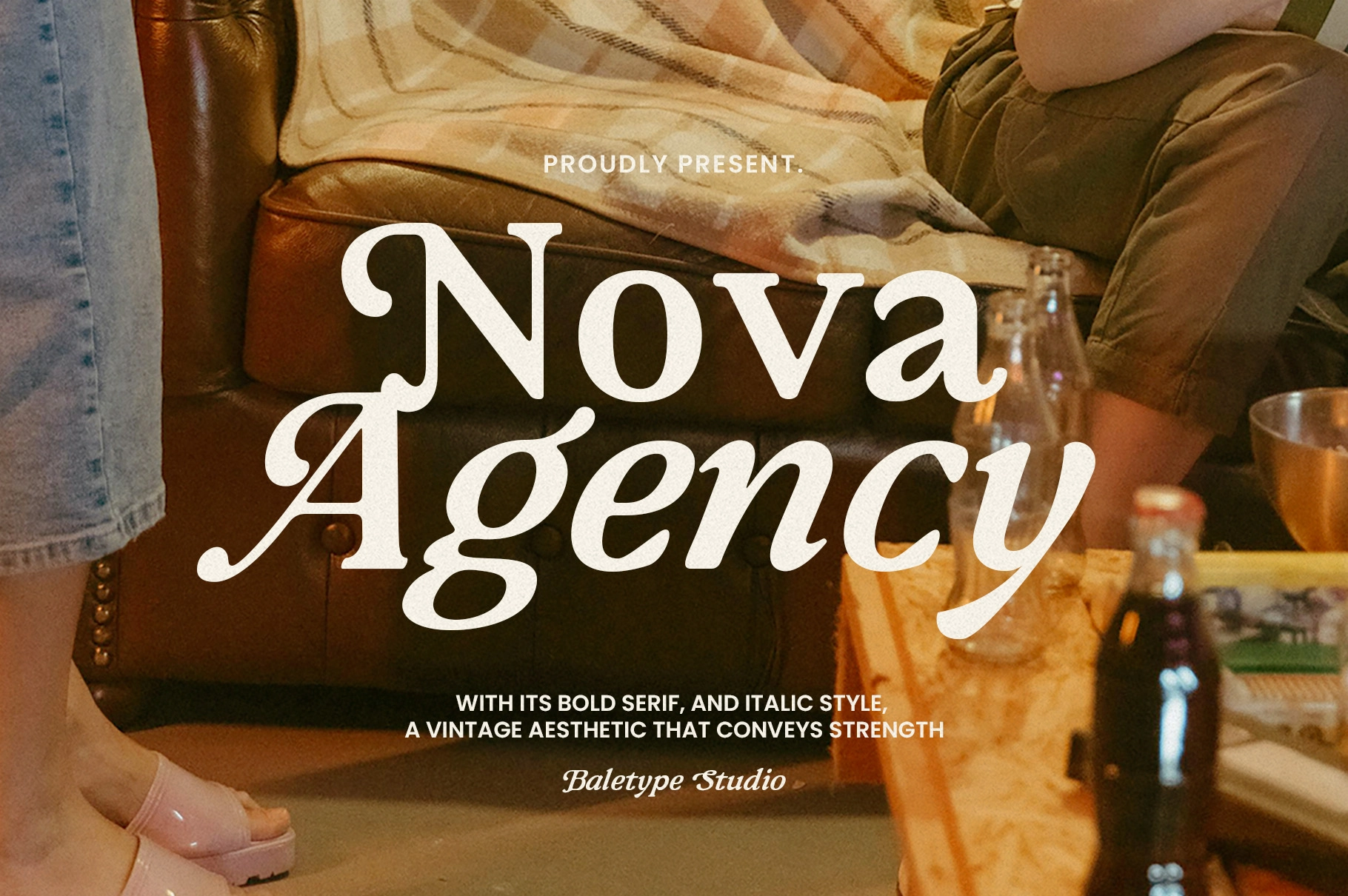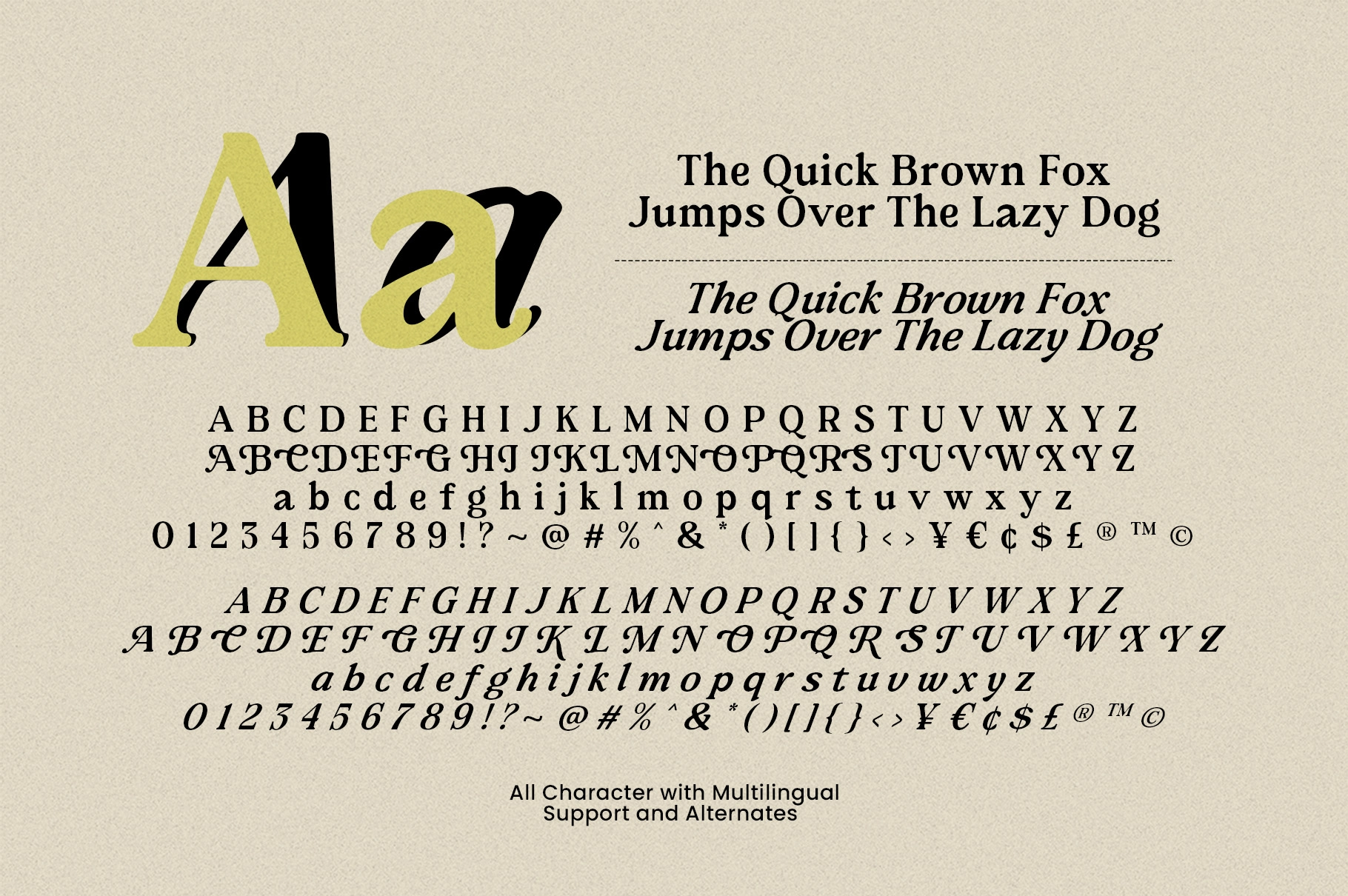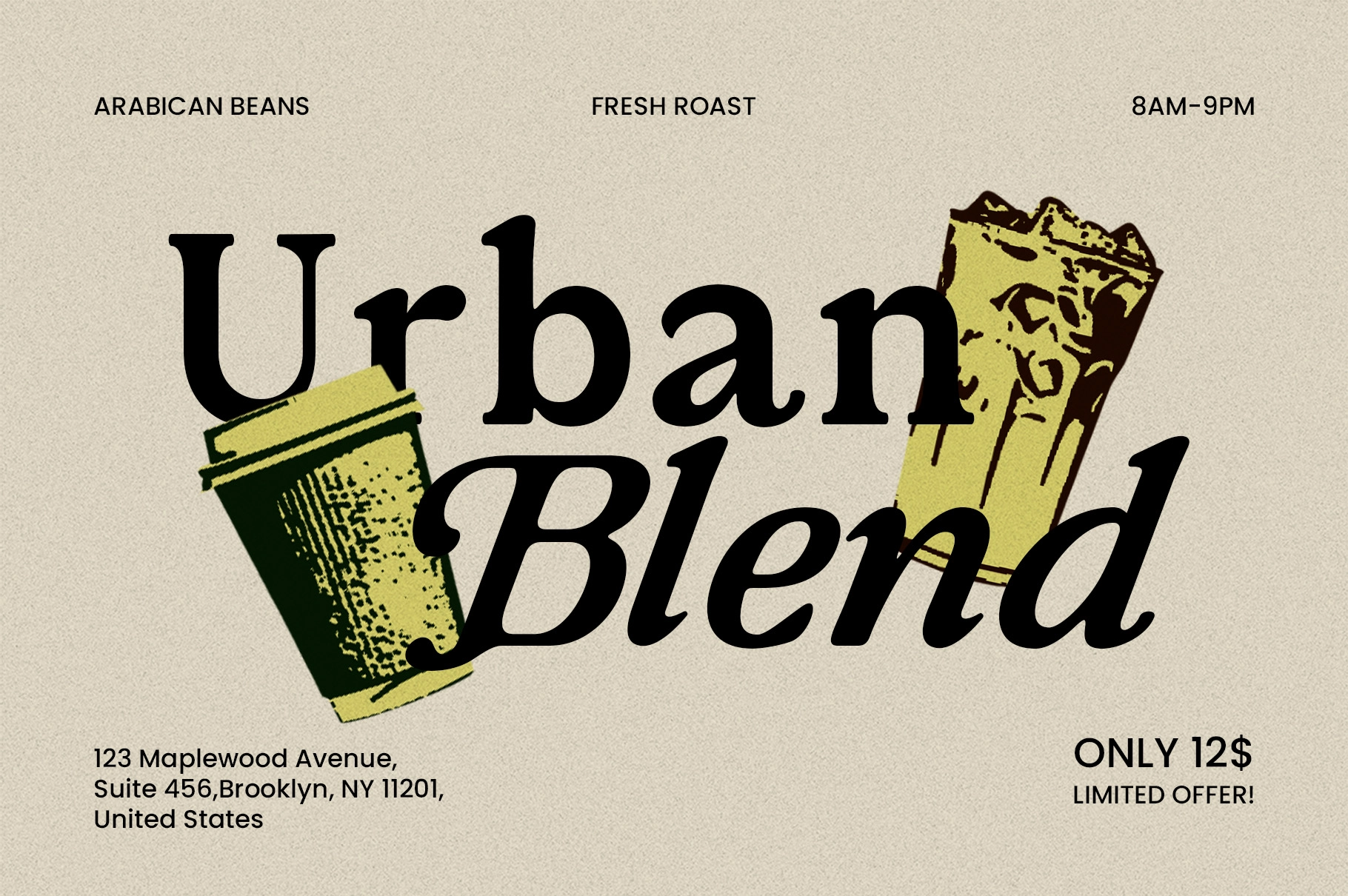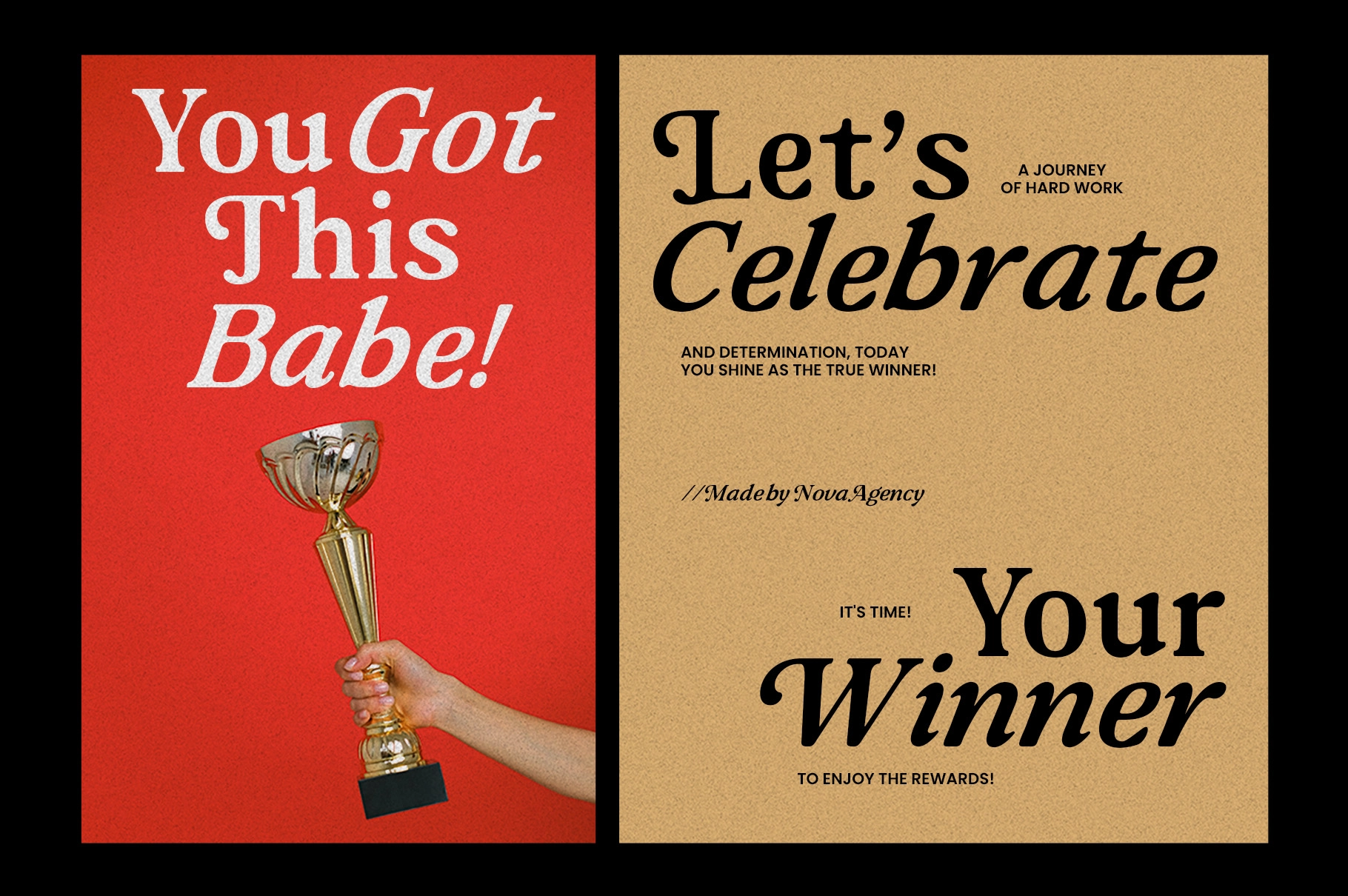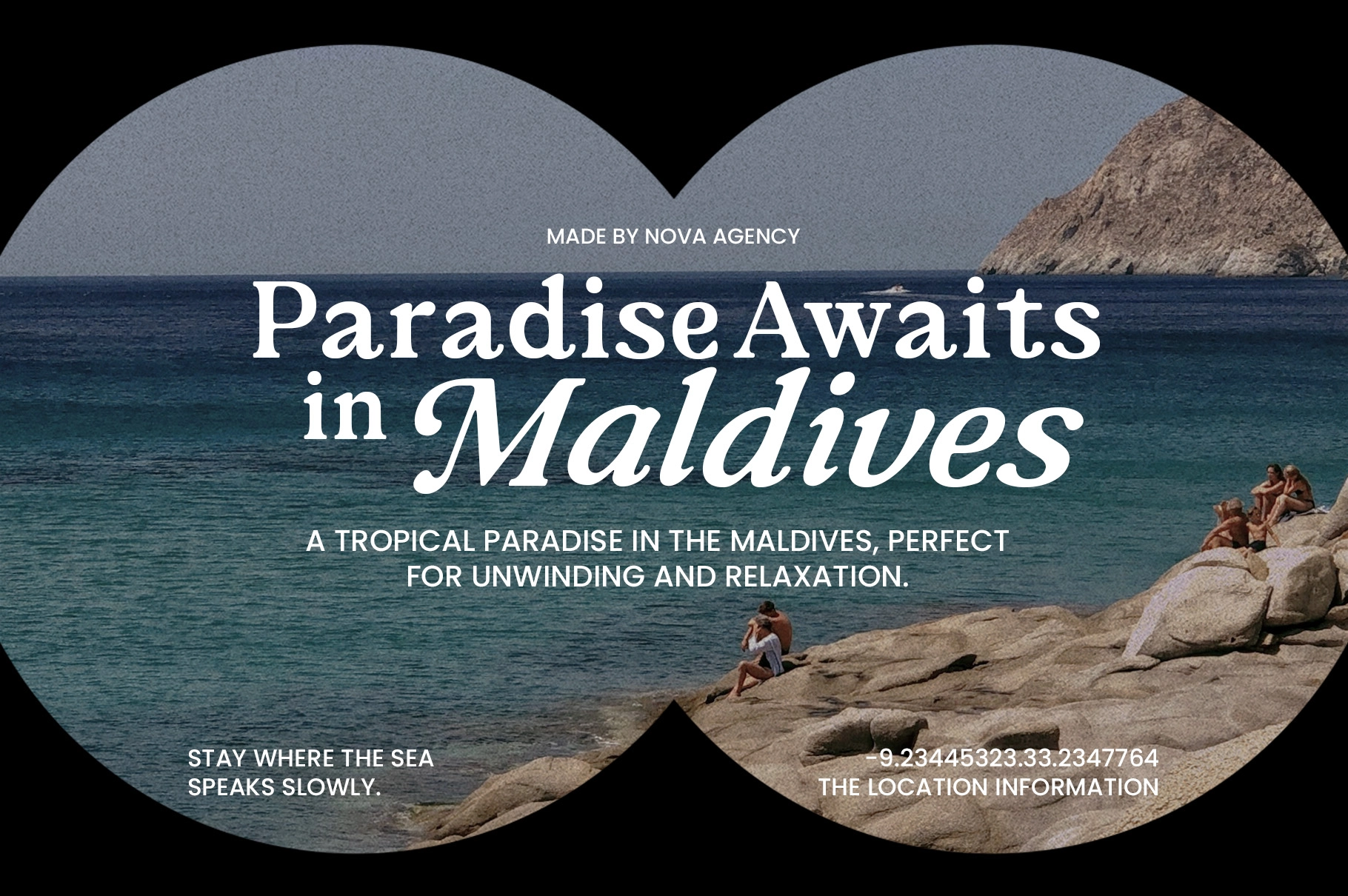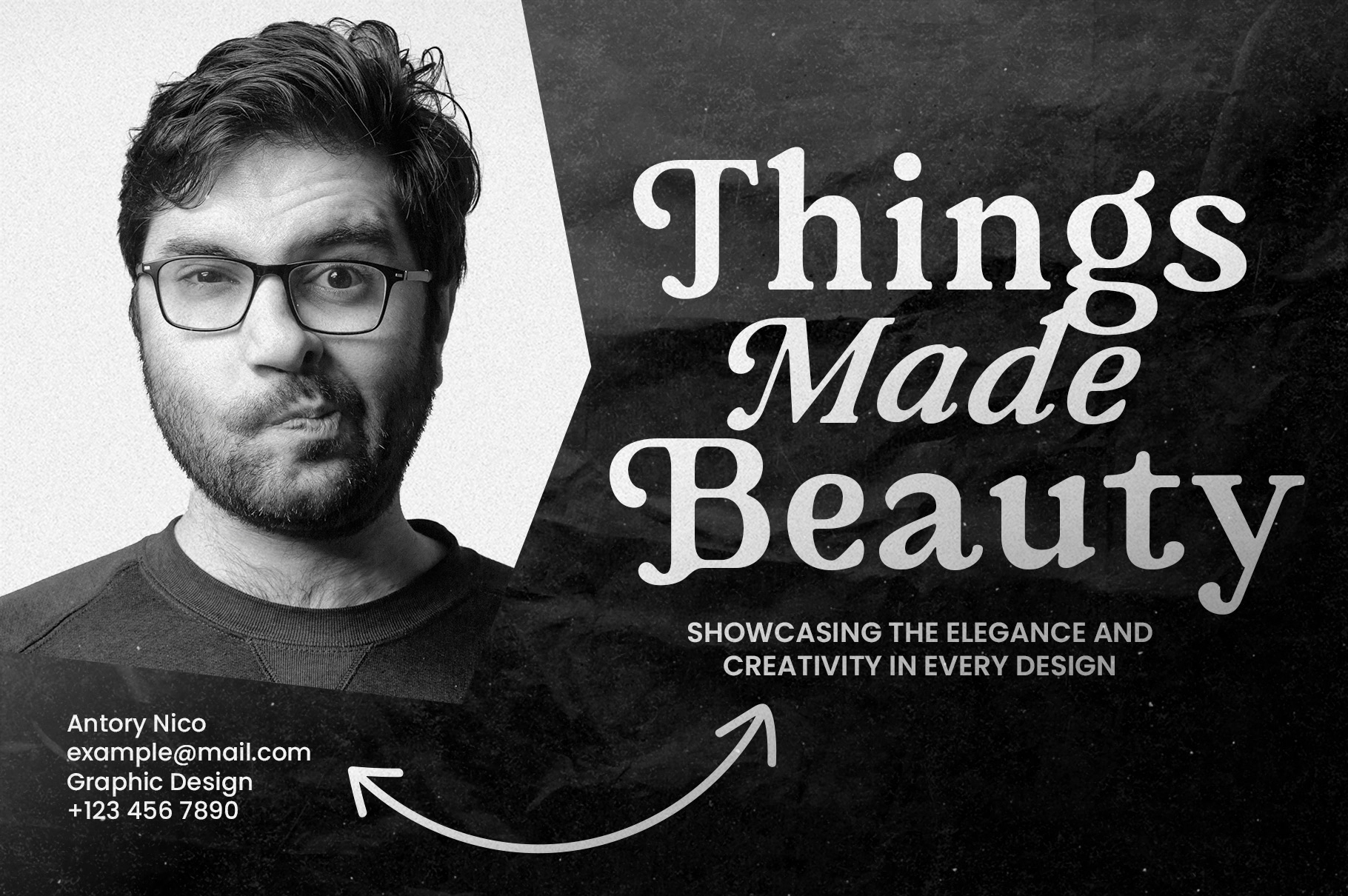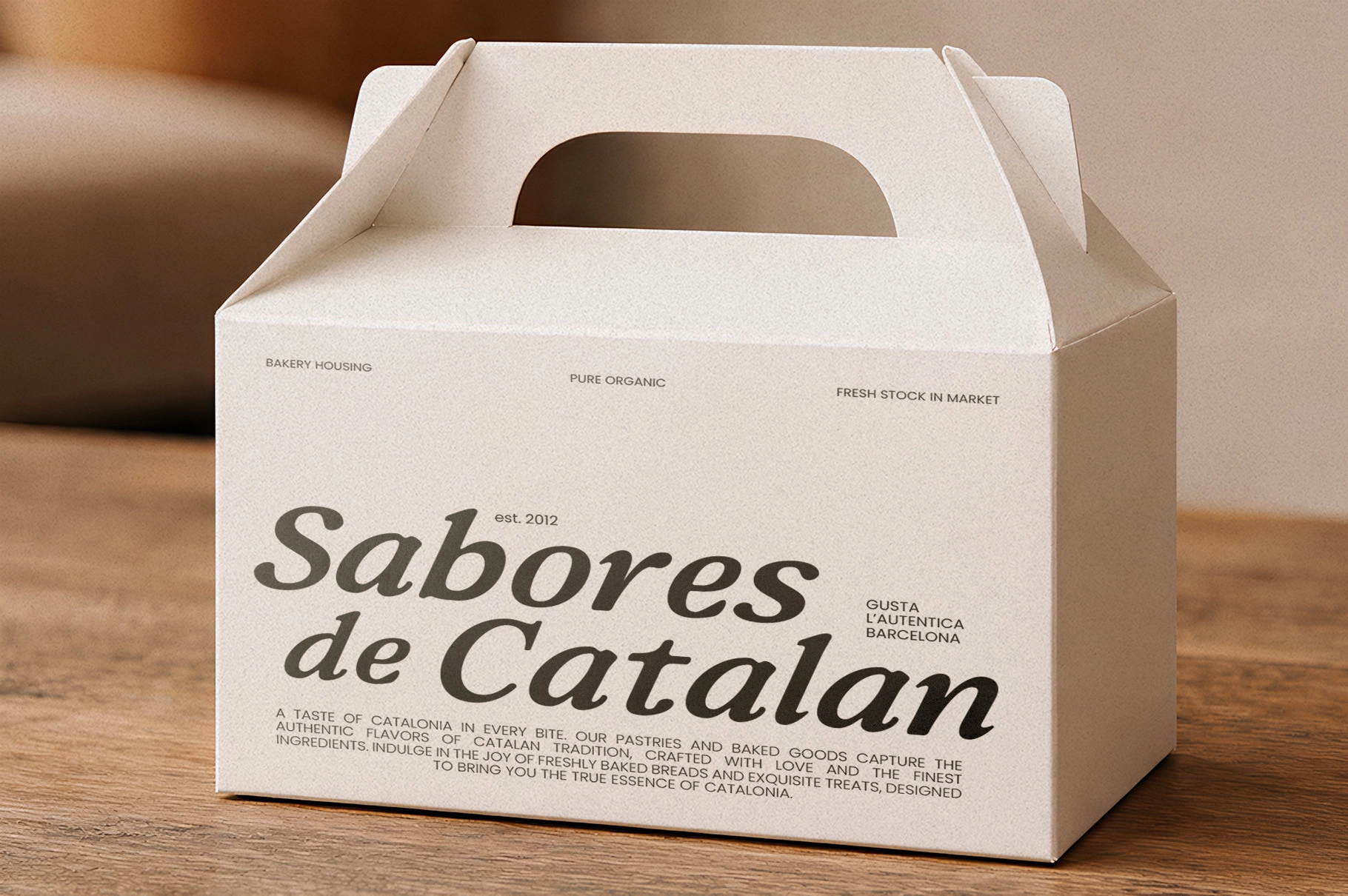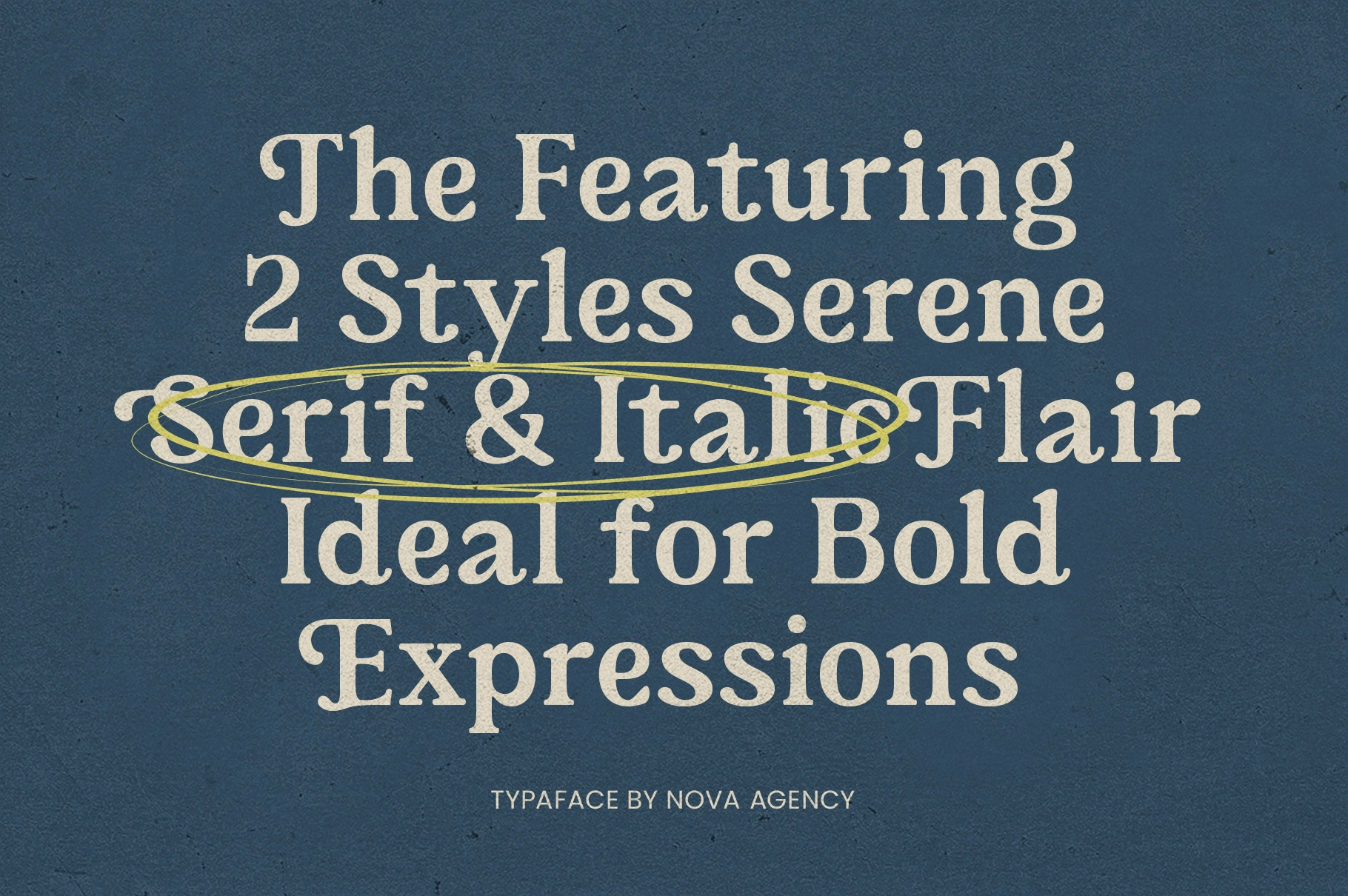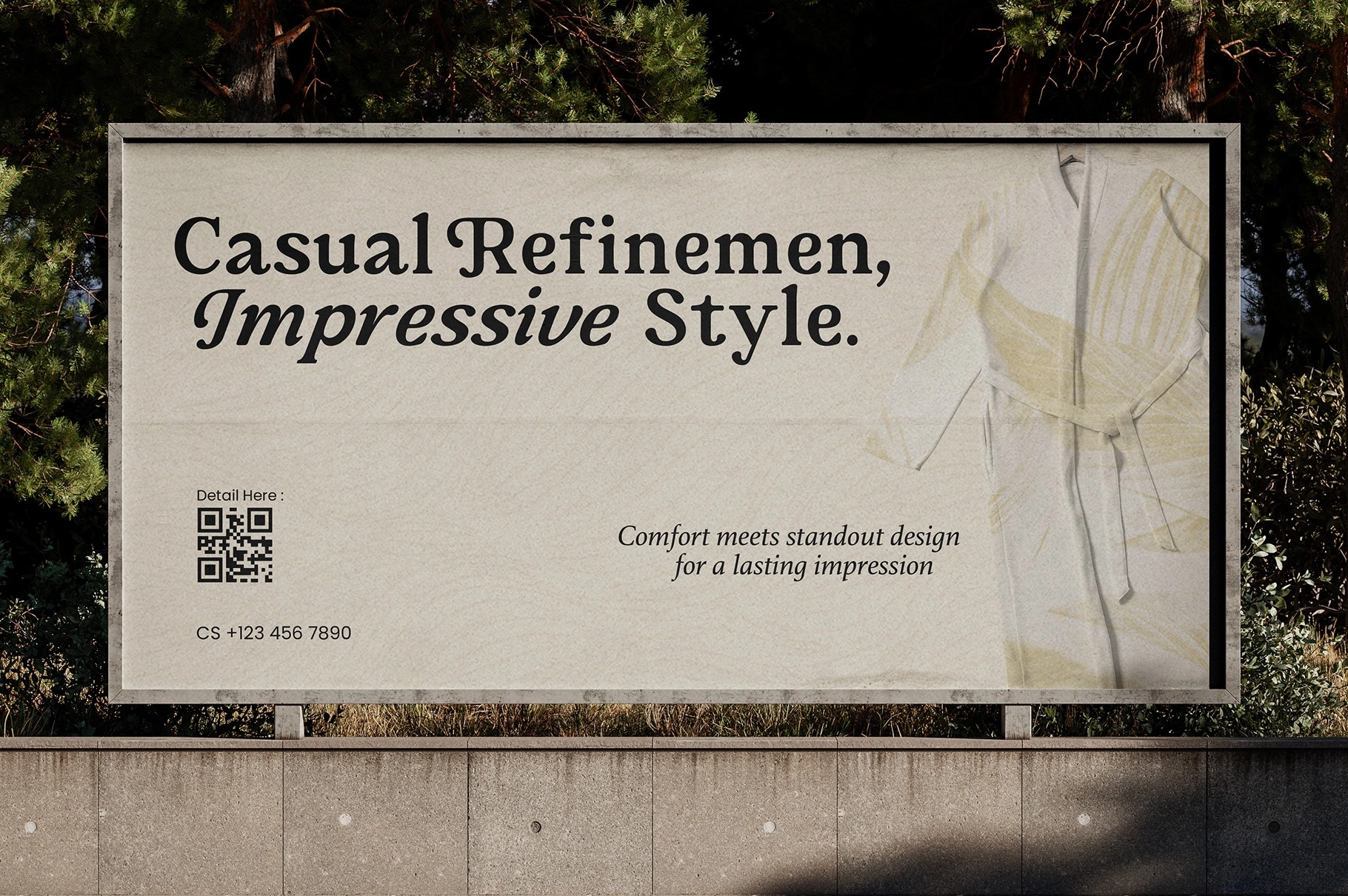
Nova Agency - Bold Retro Serif Font
This serif typeface has a bold retro character with rounded terminals, soft curves, and a confident editorial shape. The regular and italic styles create a polished pairing for expressive layouts, while uppercase alternates add extra personality to display words and logo marks.
Nova Agency works well for branding, quote graphics, wedding stationery, café posters, product packaging, magazine titles, event invitations, logotypes, social media graphics, greeting cards, book covers, merch prints, and more. The alternate uppercase set gives designers room to add custom-looking details without turning every layout into a typographic costume party.
- 2 styles: Regular and Italic
- Uppercase alternates